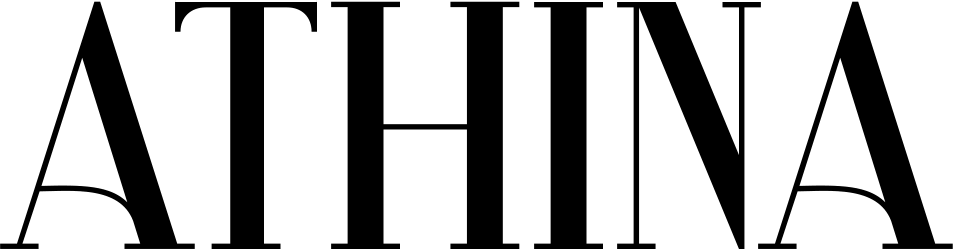
Athina Font
Designed byRillatype
Athina font will inspire a sense of confidence and luxury in your design, even though it does not have lowercase letters. Following the thin and thick lines in this font is the best example so that you can accept the design of invitation cards and present one of your best projects.
Designing the cover of fashion magazines and home decoration with this serif font is the best choice that a designer can have.